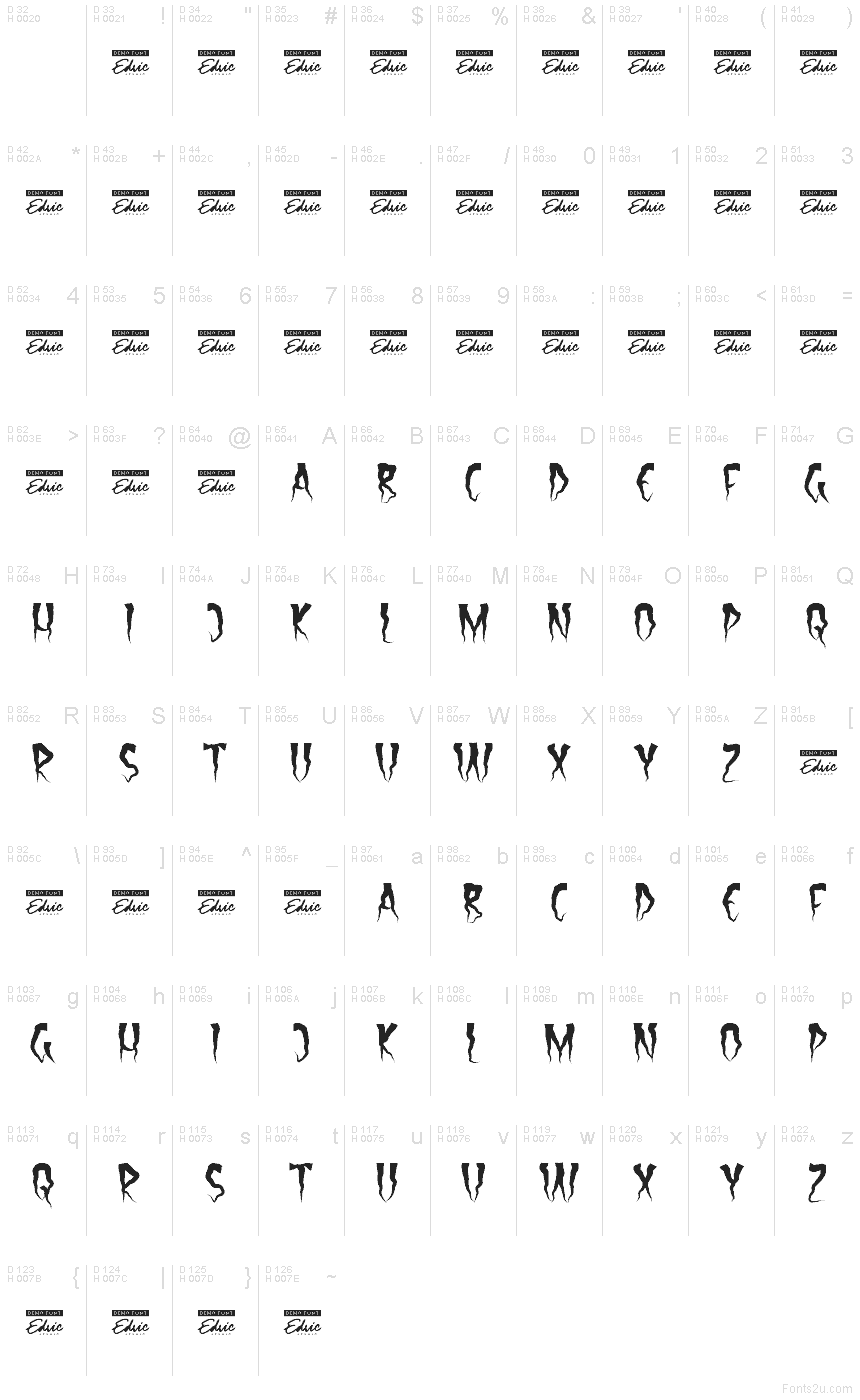
Izrail font by Edric Studio is a free distorted Halloween display font. Its letters look stretched and sinewy, with root-like legs that taper to sharp points and a slight melt, as if the ink is slipping down the page. The rhythm feels off-kilter on purpose, creating instant tension and a creeping, cinematic vibe that reads clearly at headline sizes while staying deliciously eerie.
Using Izrail, you can conjure haunted house posters, party invitations, horror film titles, escape room branding, spooky merch, game splash screens, and social countdowns. This free font shines when set large with generous spacing. Pair it with a clean, neutral sans for body copy to keep the chill focused where it belongs—the headline.